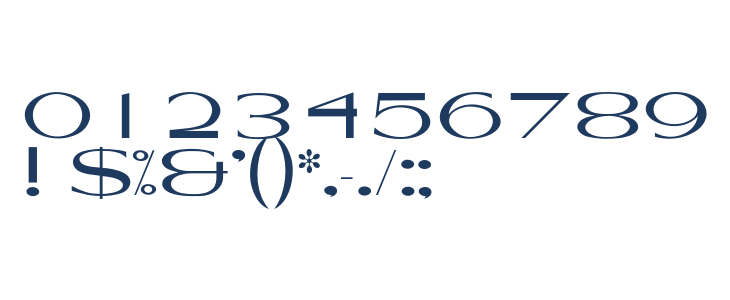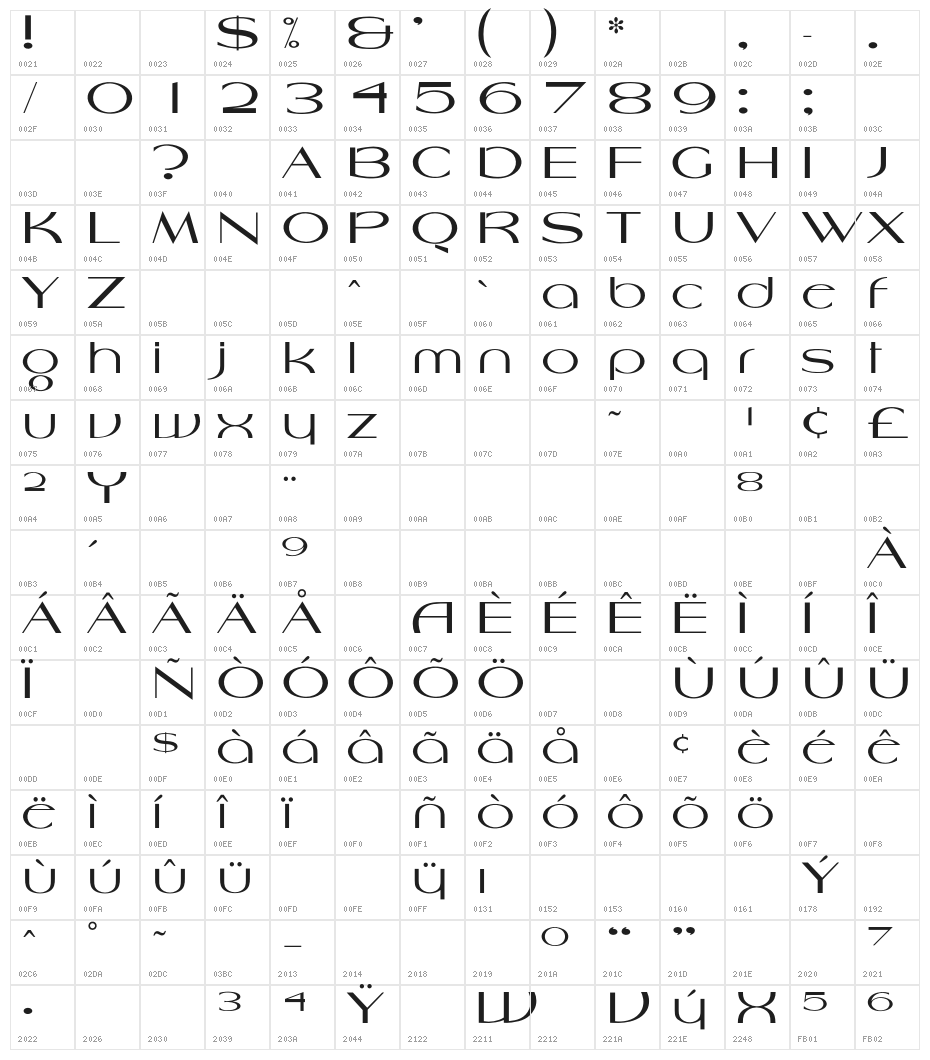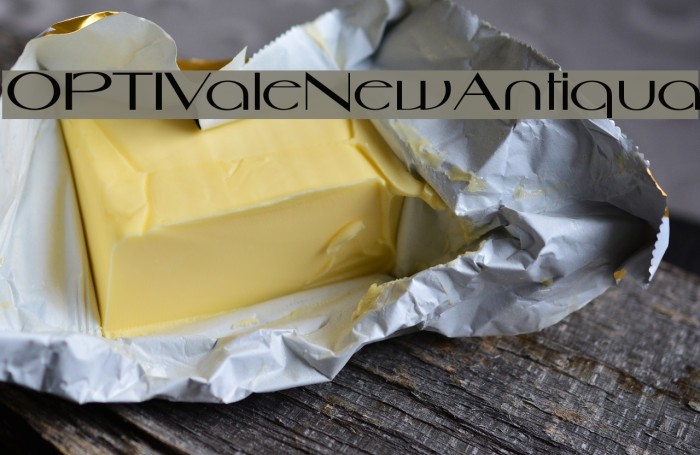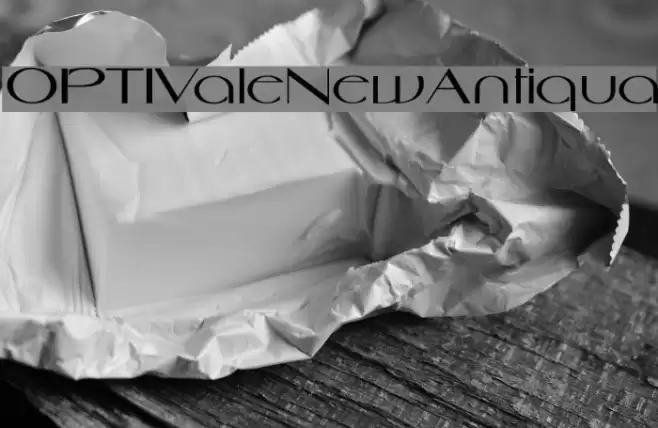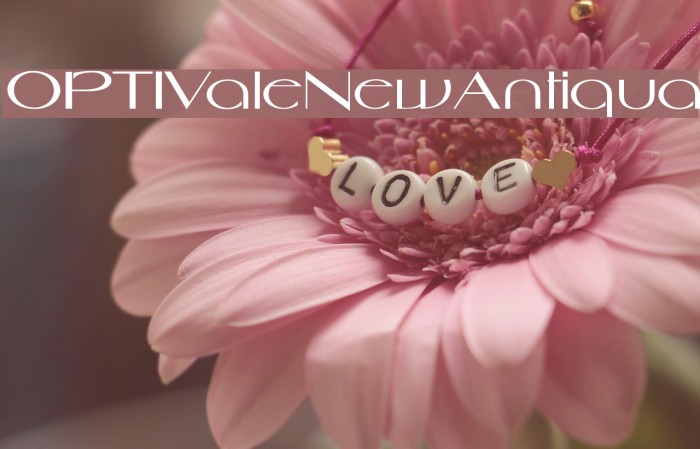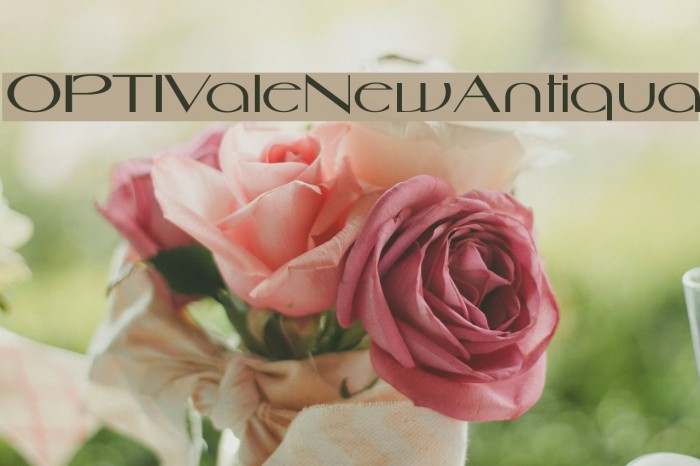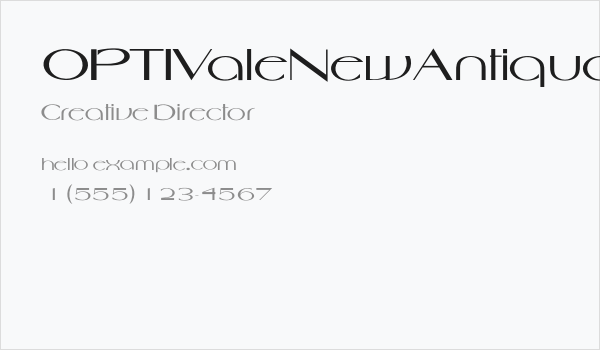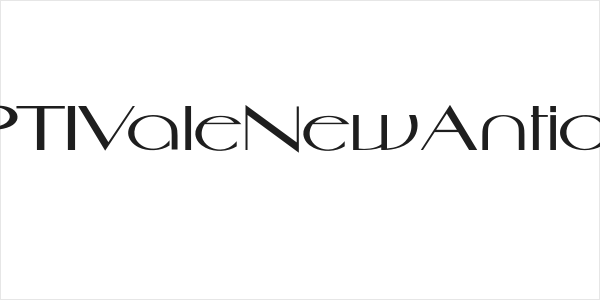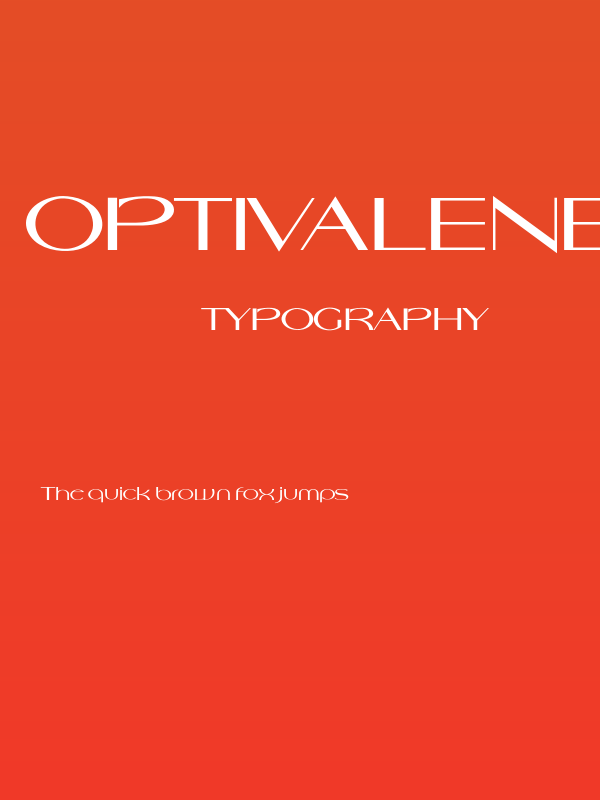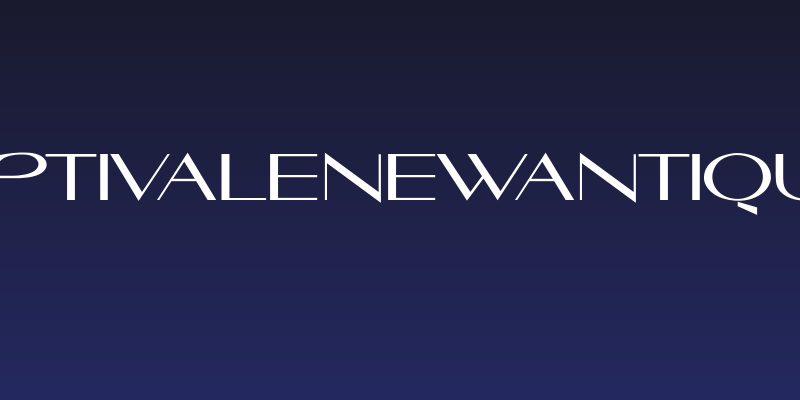
OPTIValeNewAntiqua Font
OPTIValeNewAntiqua Description
This font exhibits a sleek and modern aesthetic with a geometric structure. The characters are crafted with a blend of sharp angles and smooth curves, creating a dynamic and contemporary look. The uppercase letters are bold and striking, while the lowercase letters maintain a consistent flow with a slightly softer appearance. The numerals are clear and balanced, complementing the overall style. Special characters are designed with the same attention to detail, ensuring uniformity across the typeface. This font is ideal for projects that require a modern and sophisticated touch.